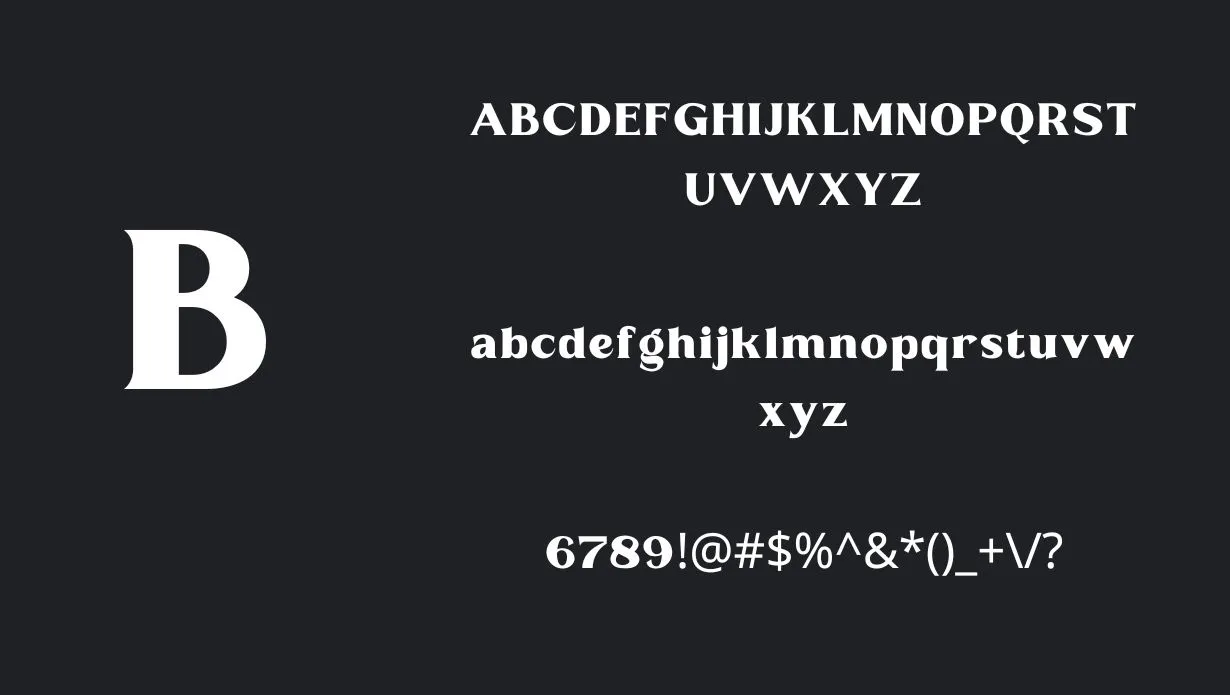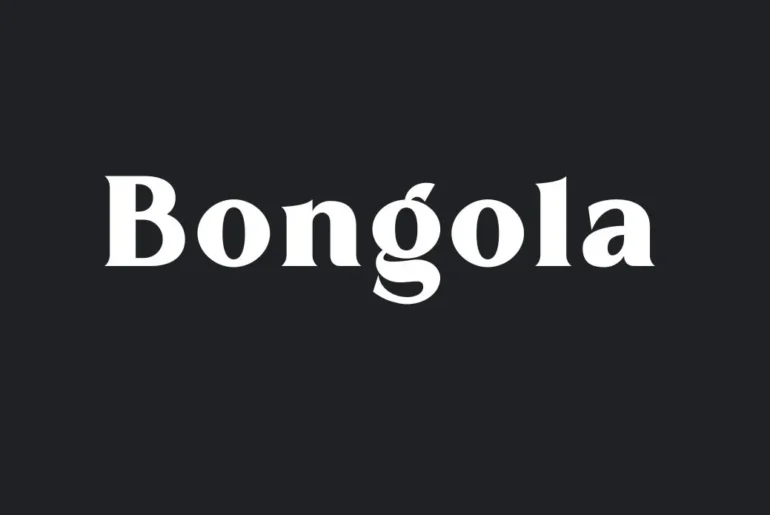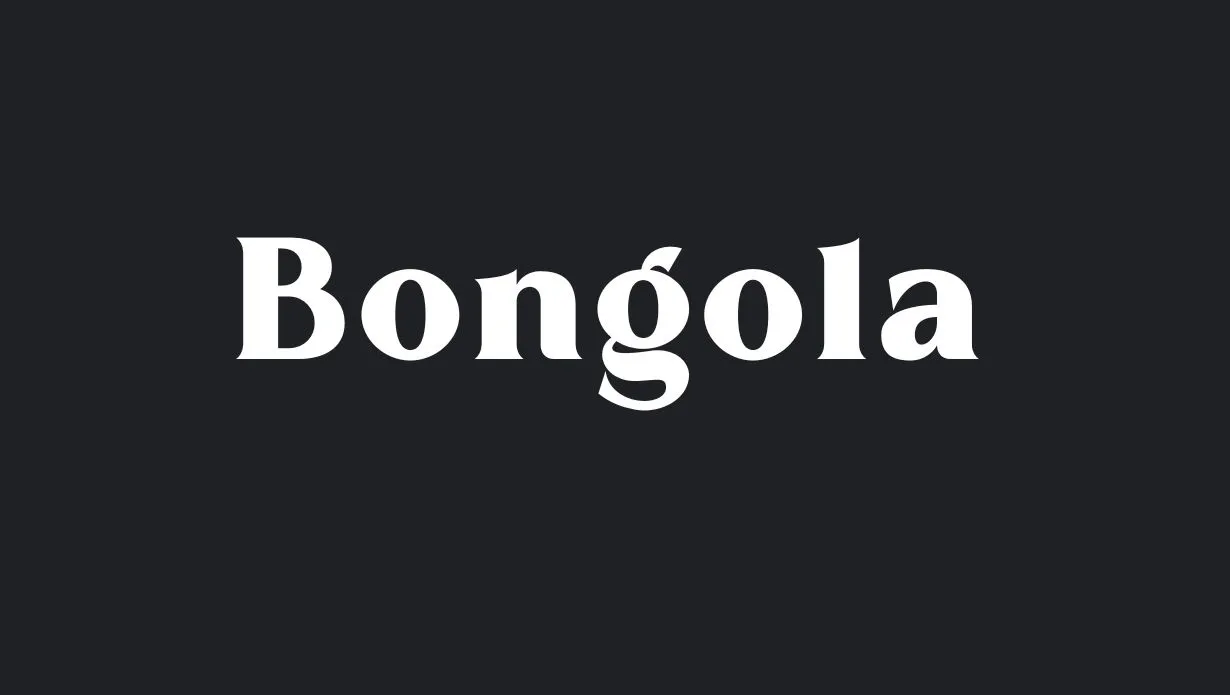
Bongola Font is a beautiful vintage style typeface with modern serif touch. It has vintage look that gives charm to your design and typography project, It has been designed by RTSTD and provided as free for personal use only.
The typeface has versatile visibility and can fit with any kinds of posters and designs even it’s a small or large design. It has modern curves that also gives vintage influence.
Use of Bongola Font
This versatile typeface can be used in both printing and digital designs. You can also utilized it in your Posters, Brouchers, Banners, pamphlet and digital designs like Logos, social media posts, and much more.